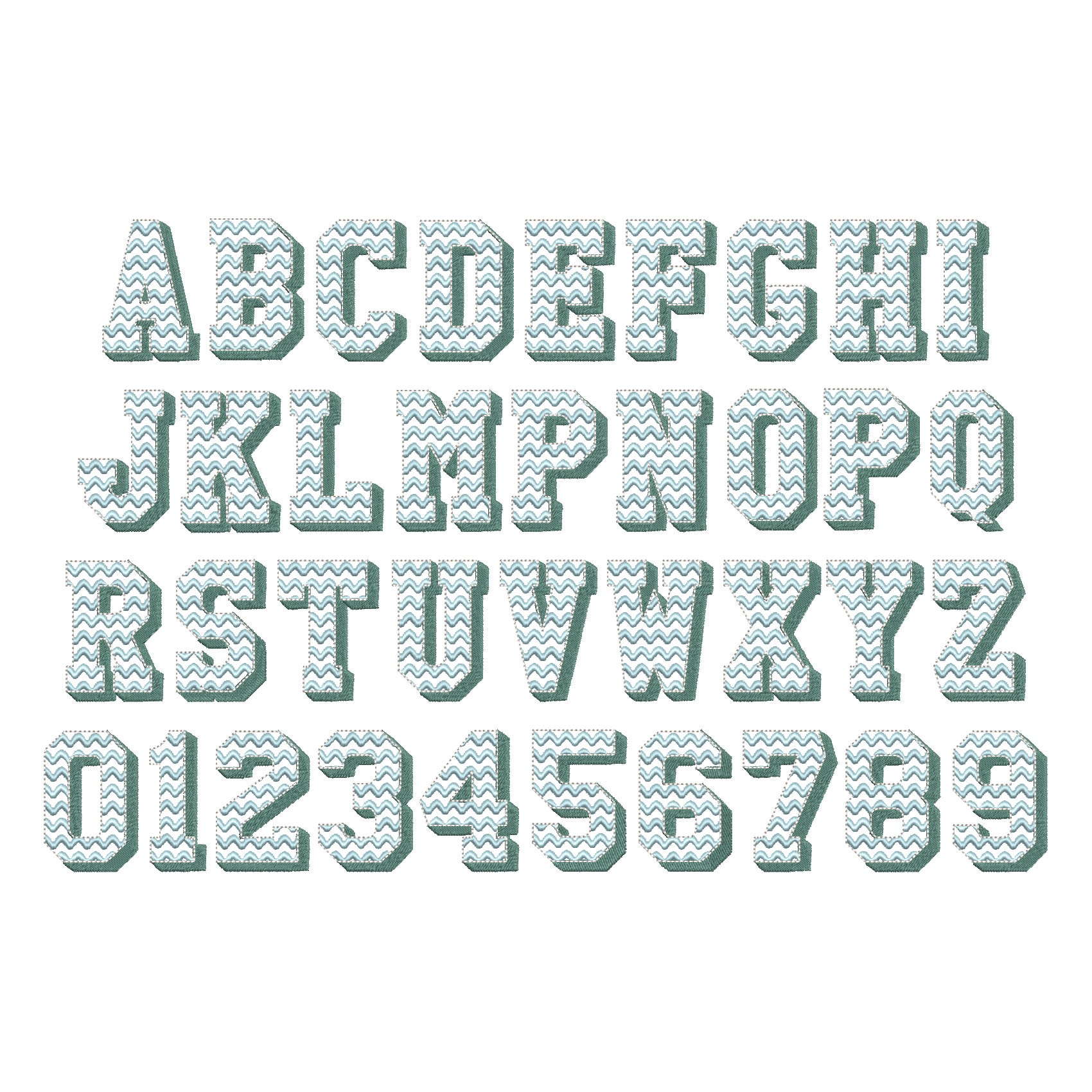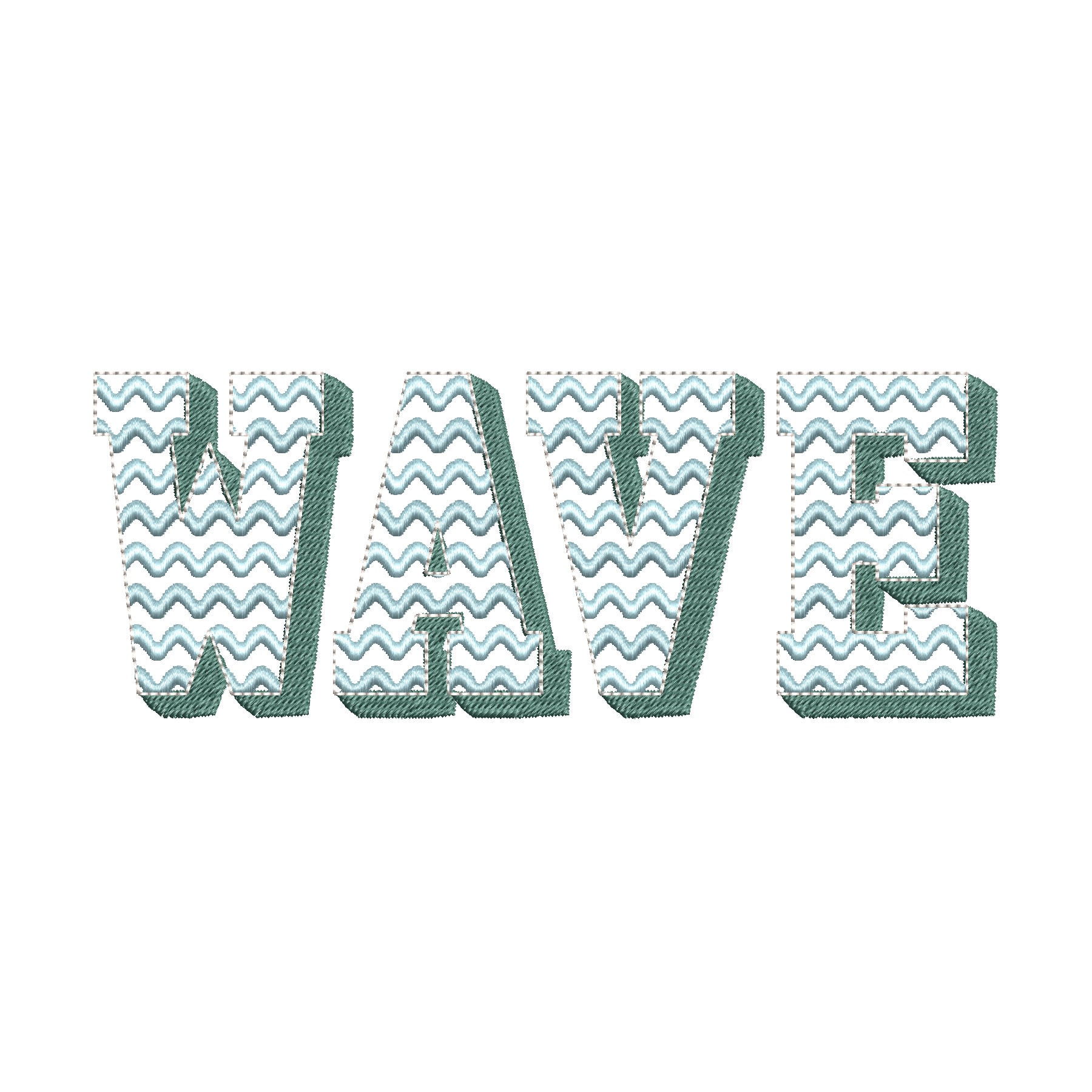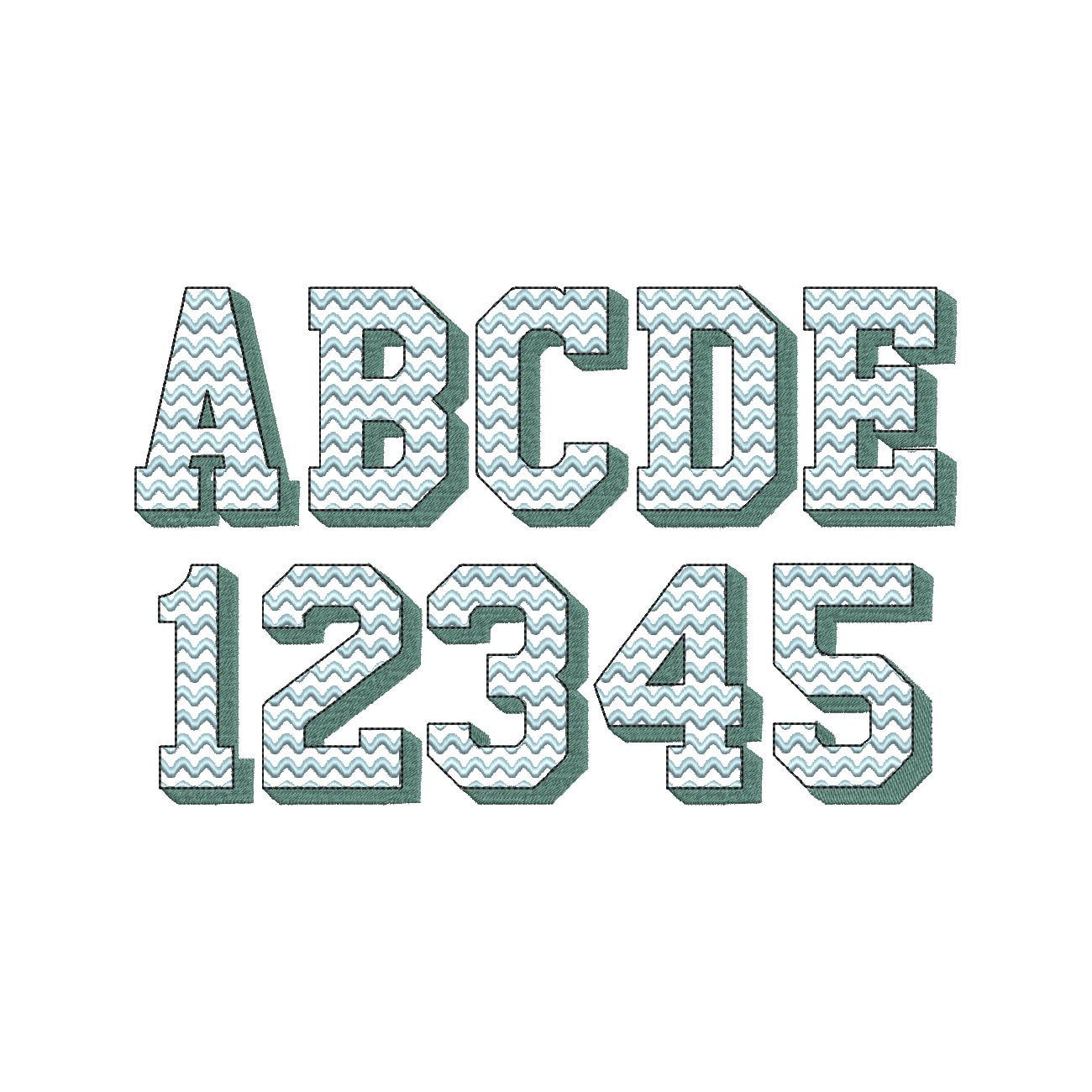
Wavy Waves Patterned Font 3 three colors Shadow Alphabet letters and numbers machine embroidery design assorted sizes block shadowed font
The font is transparent and has satin stitch waves, fill stitch shadow, and a bean stitch outline.
Whole alphabet uppercase A-Z and numbers 0-9